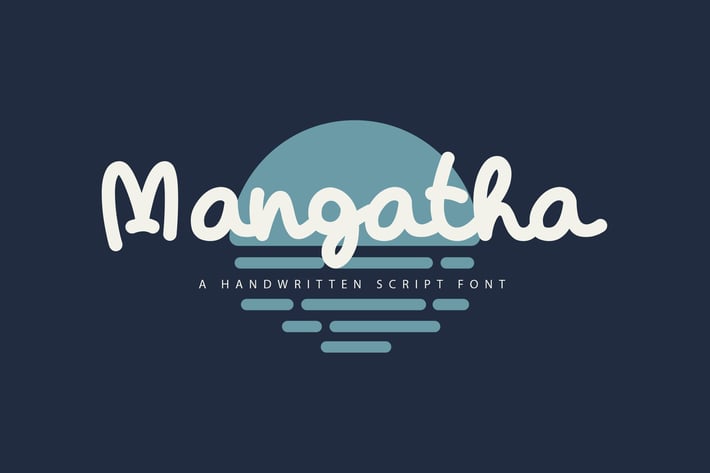
Mangatha - Handwritten Font
Mangatha is handwritten script font. It has casual, classy, fun, and cute. Itβs a great font for fashion, apparel projects, signature, album cover, logo, branding, magazine, social media, & advertisements, but also works great for other projects.